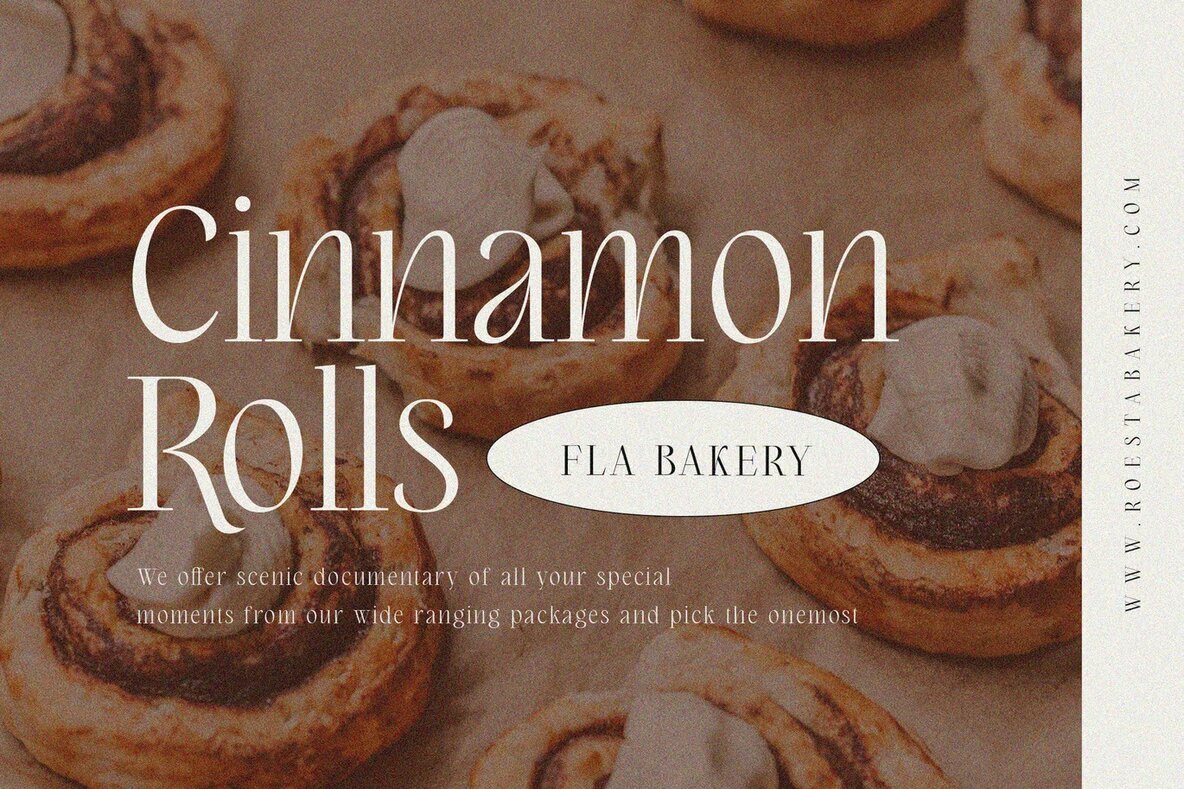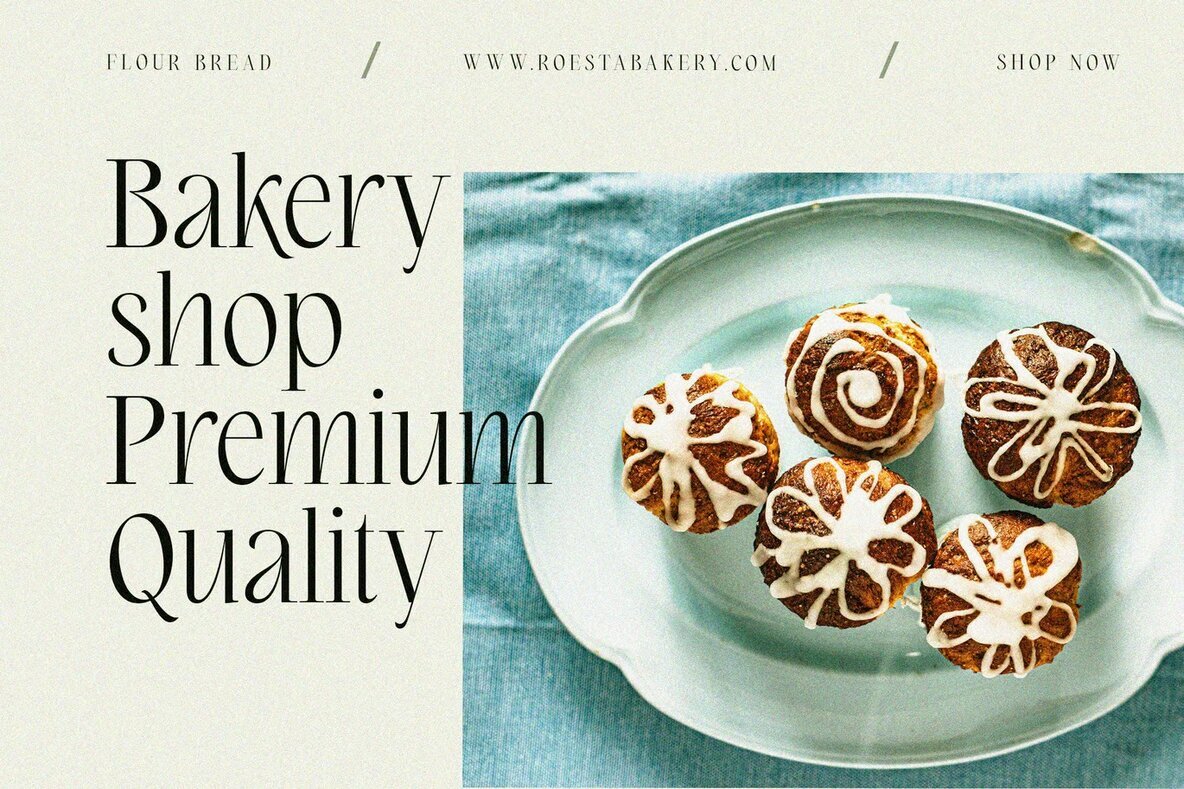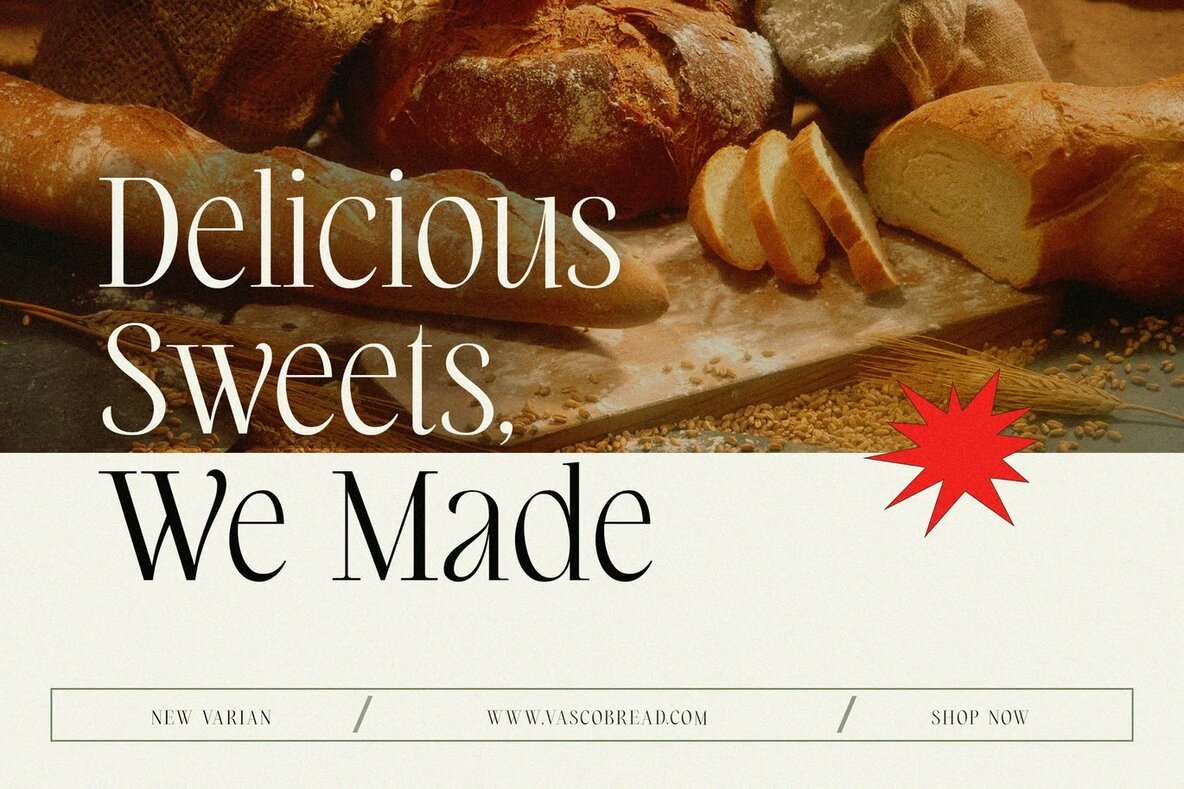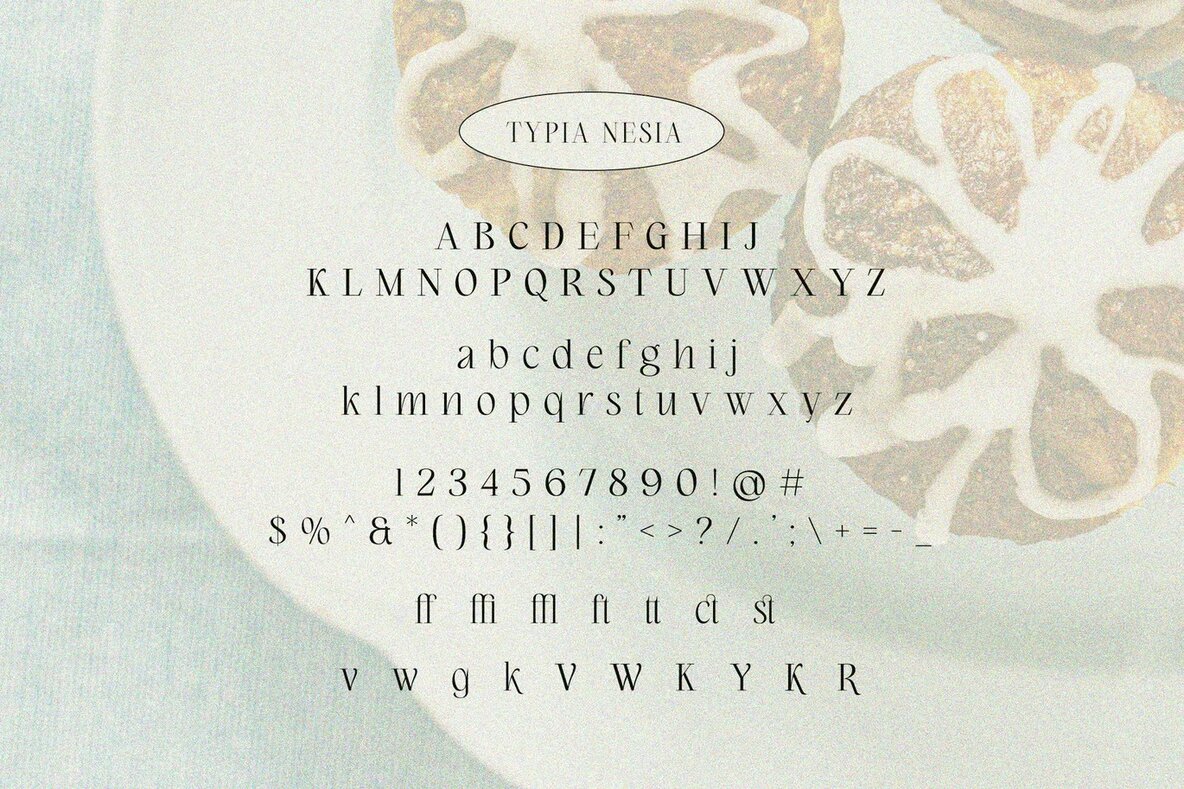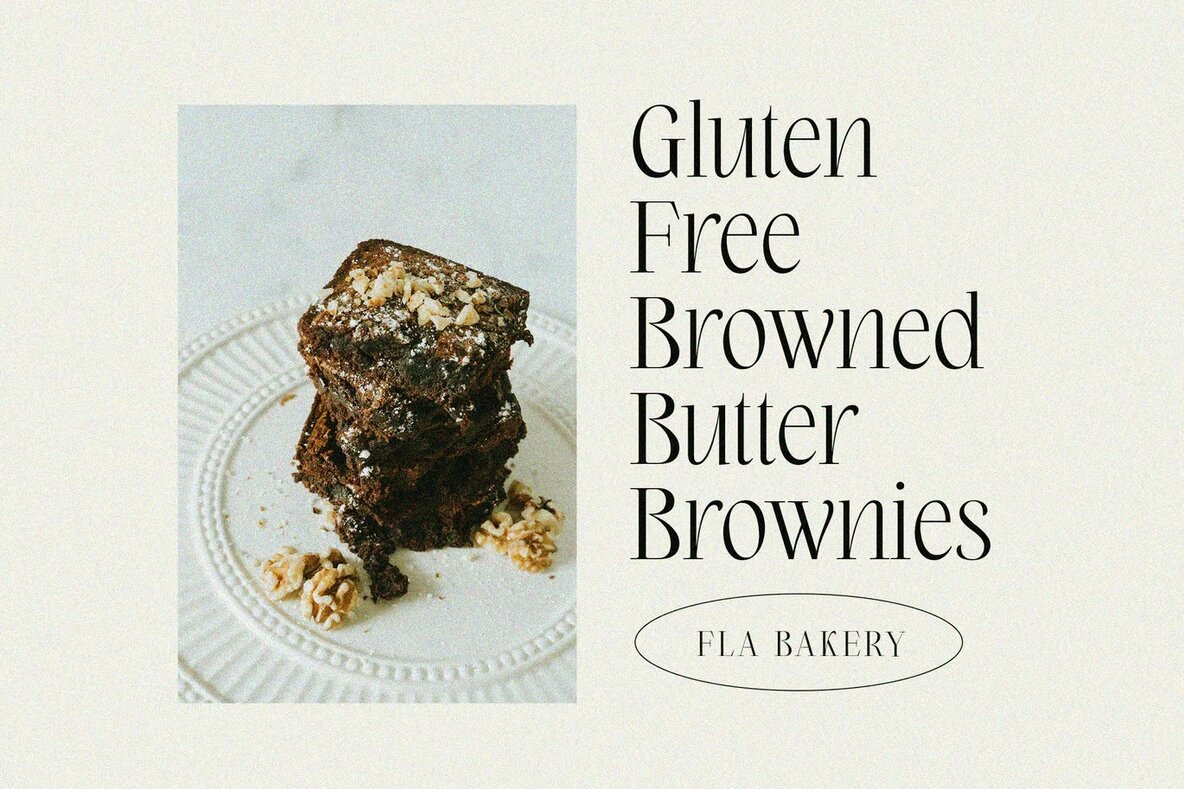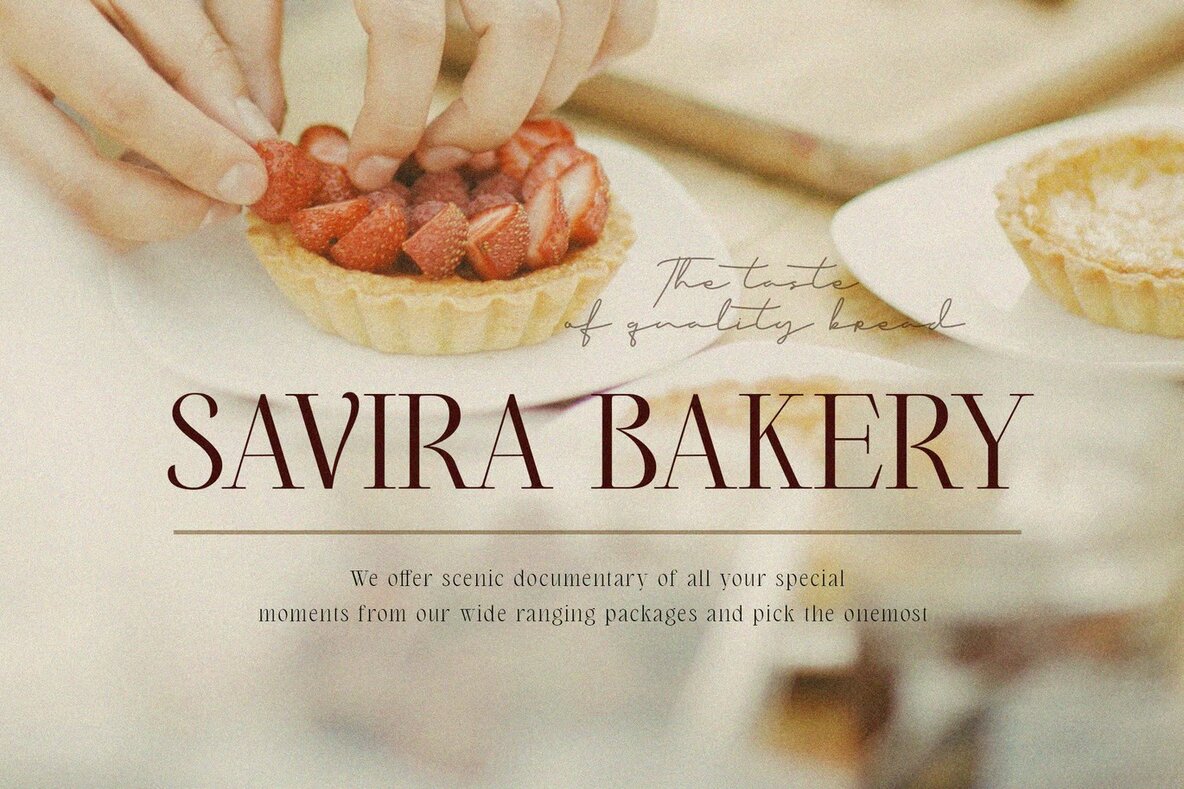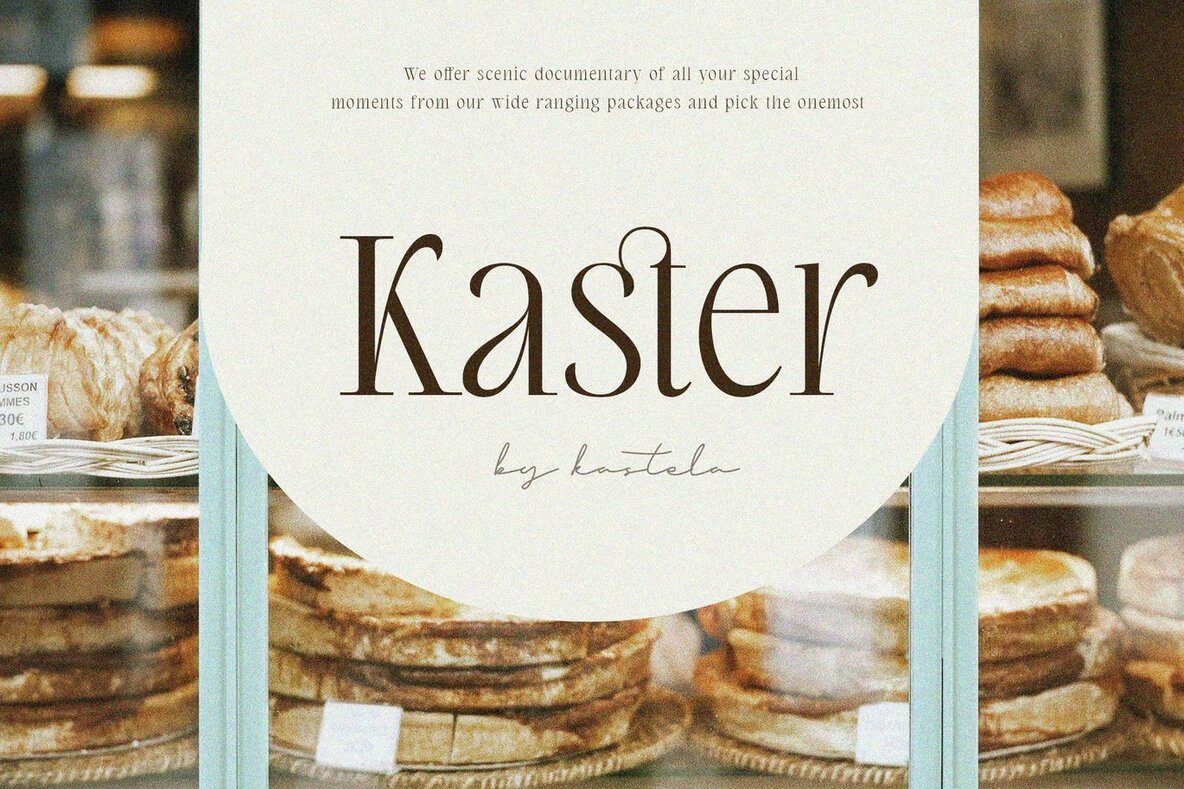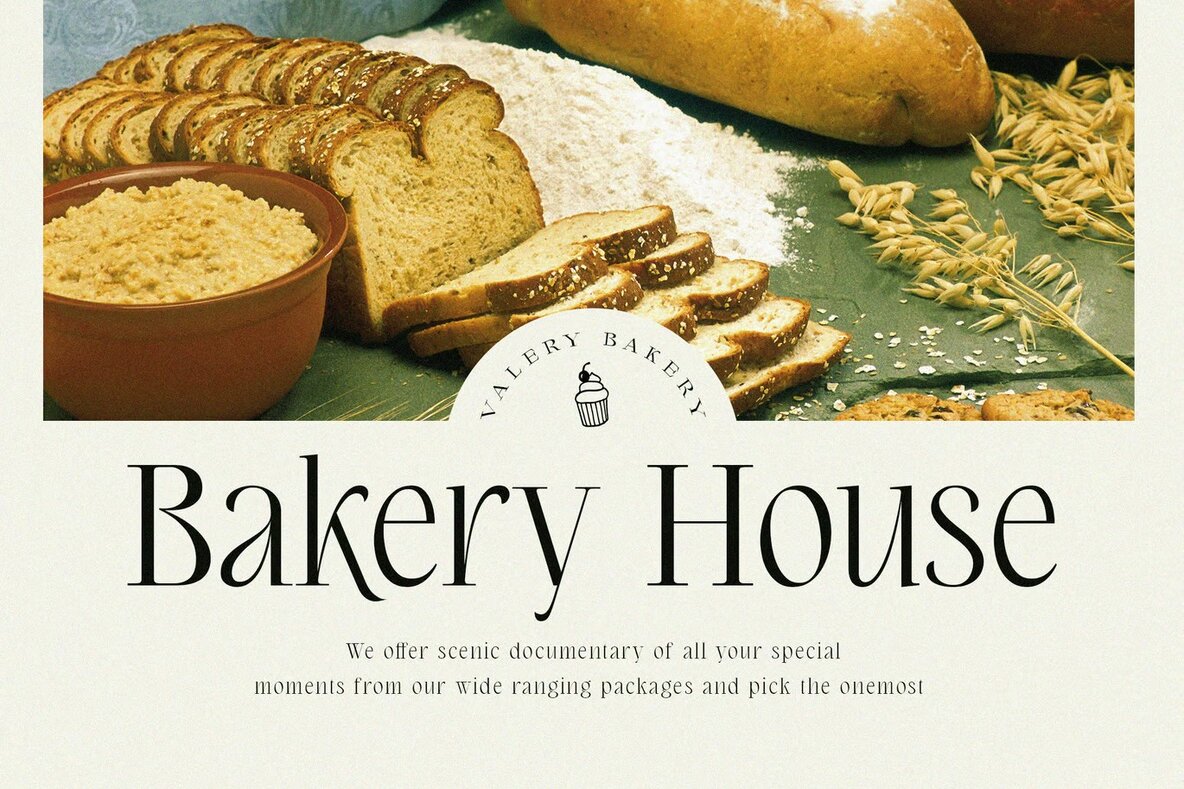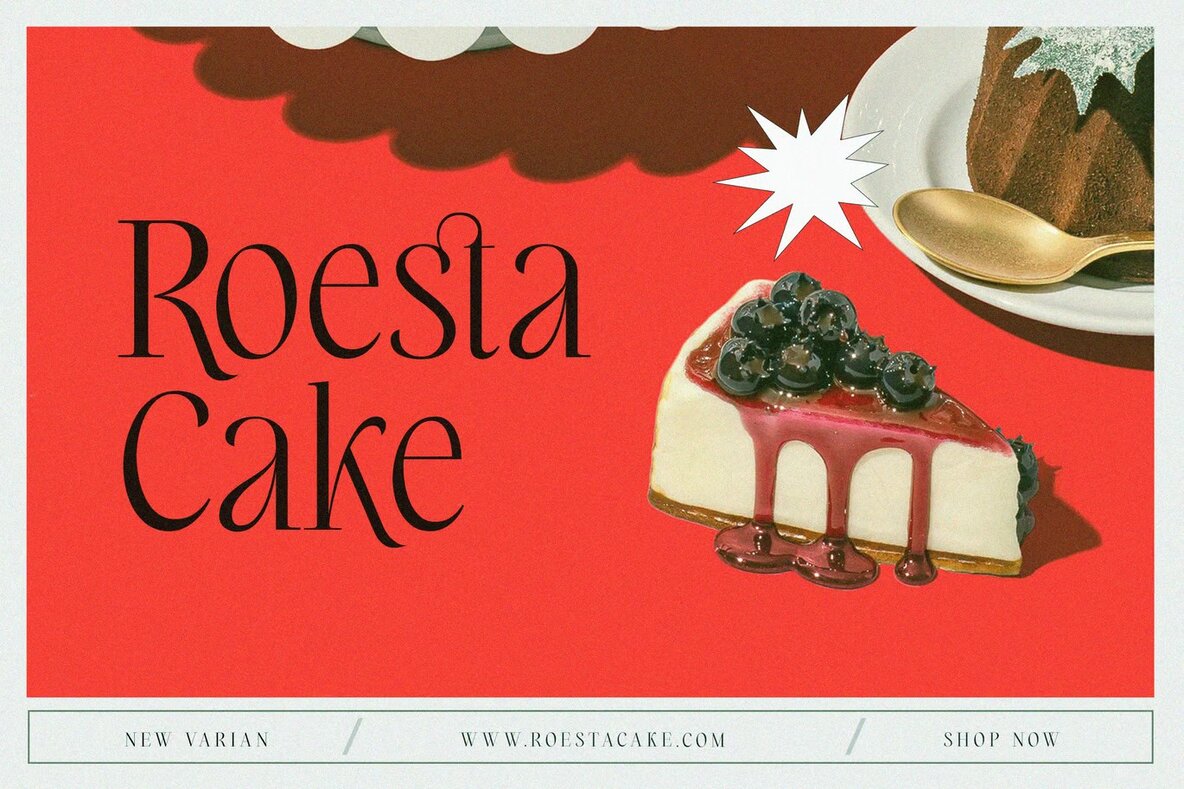
Brandcake is a classy and elegant condensed serif font ideal for luxury logos, sophisticated branding, and upscale editorial designs. Its intricate design makes it perfect for use in women’s magazines, high-end cosmetic brands, and fashion promotions. This font brings a touch of sophistication to art gallery branding, museum exhibits, and boutique stationery designs.
Brandcake also excels in modern advertising, card invitations, art quotes, and home decor projects. It’s an excellent choice for book covers and titles, as well as special events that require a refined touch. With its versatile, stylish, and polished aesthetic, Brandcake is a must-have for designers looking to add a luxurious flair to their creations.